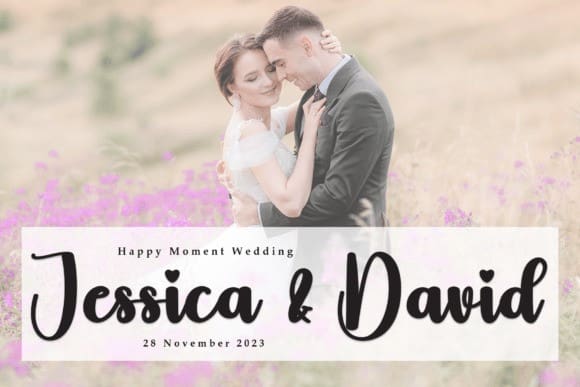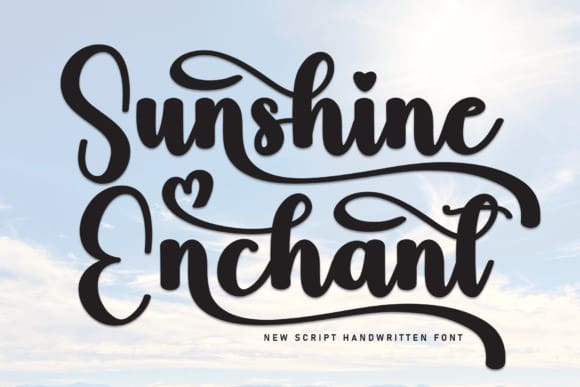
Sunshine Enchant Font
Sunshine Enchant Font is a magical script font carefully created with a touch of elegance. Whether you’re looking for fonts for Instagram or calligraphy scripts for DIY projects, this font will turn any creative idea into a true piece of art!